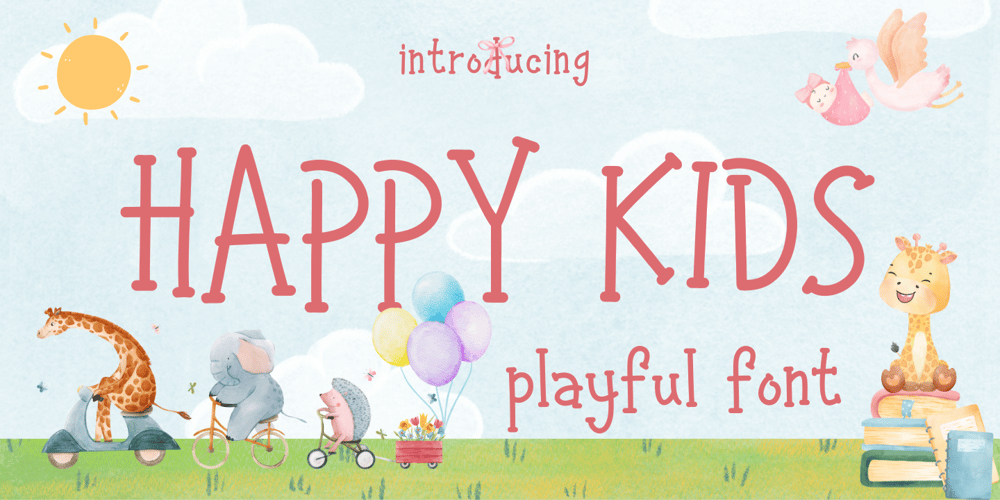
Happy Kids Font Family was designed by Dian Haniffan Hadi and published by Beary. Happy Kids contains 1 styles and family package options. Happy Kids embodies fun, quirkiness and authenticity. It features gorgeous and fun characters that will brighten up your crafting projects. It will elevate a wide range of design projects to the highest level, be it branding, comic design, children’s books, headings, invitations, labels, and much more